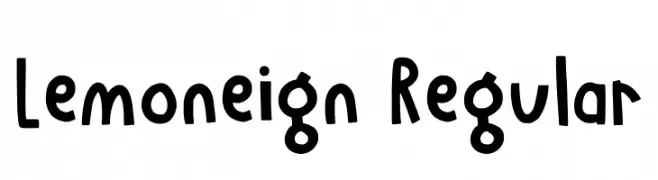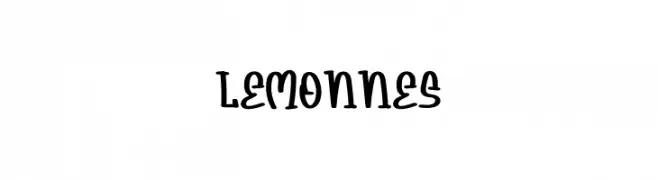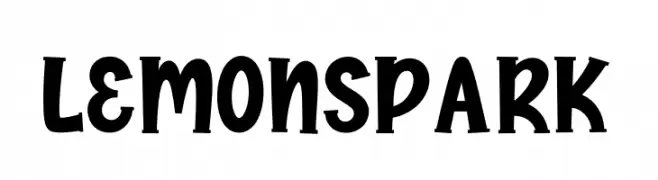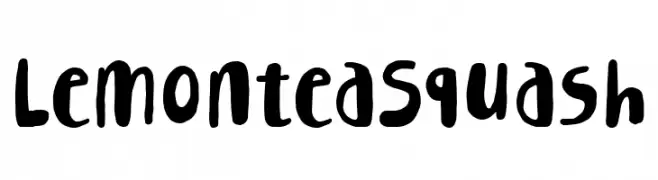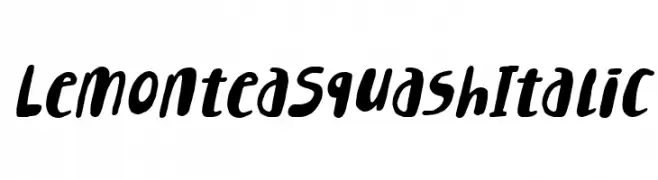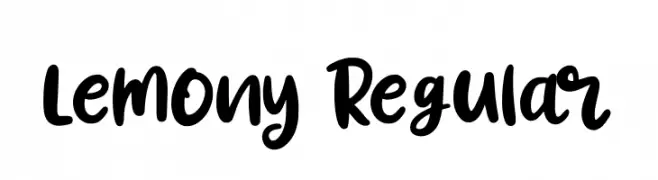
( Fonts by Andini Endah Pratiwi )
A playful, hand-drawn font with a whimsical and informal style.
( Fonts by Simbol Hello )
A bold, playful font with rounded letterforms and a whimsical style.
( Fonts by Simbol Hello )
A bold, playful font with rounded, whimsical letterforms.
( Fonts by AV Type )
A bold, playful font with a whimsical, hand-drawn style.
( Fonts by 7NTypes )
A playful, bold, and hand-drawn font with a whimsical style.
( Fonts by 7NTypes )
A bold, italicized font with playful, rounded strokes and a dynamic style.
( Fonts by Creatype Studio )
A playful, bold handwritten font with smooth curves and a lively appearance.